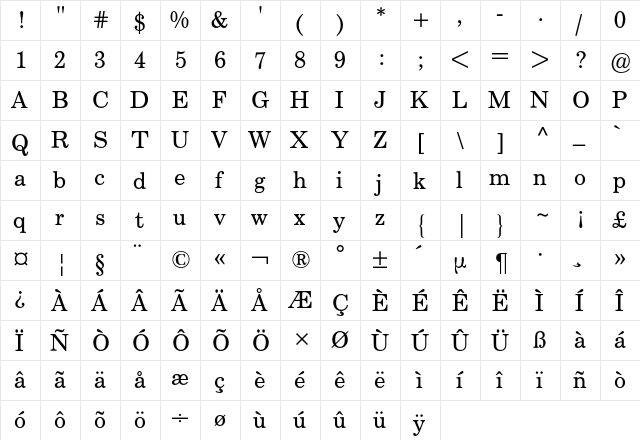
Century ATF Schoolbook BQ Regular
Century ATF Schoolbook BQ is a composed and adaptable typeface that performs quietly and consistently across a wide range of design contexts.